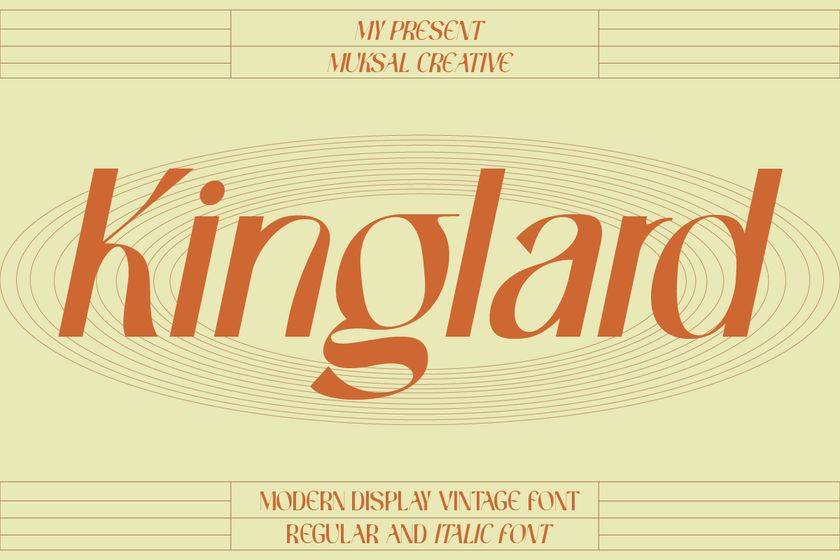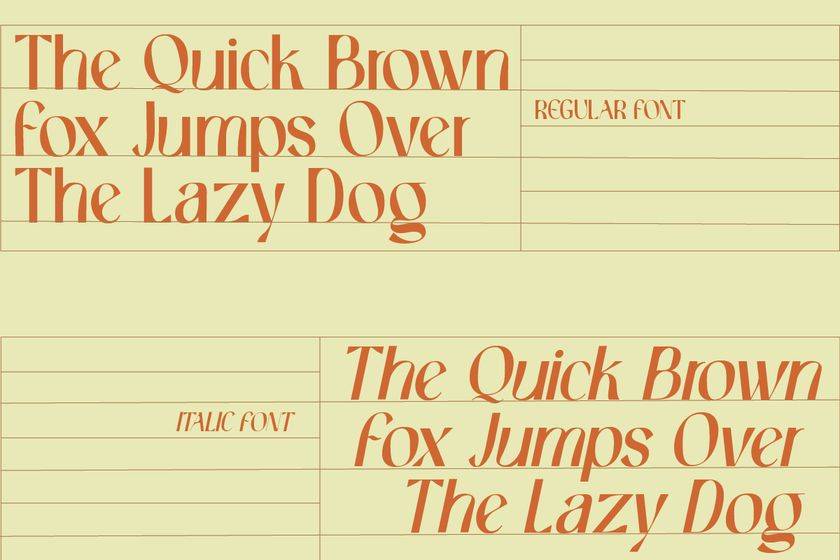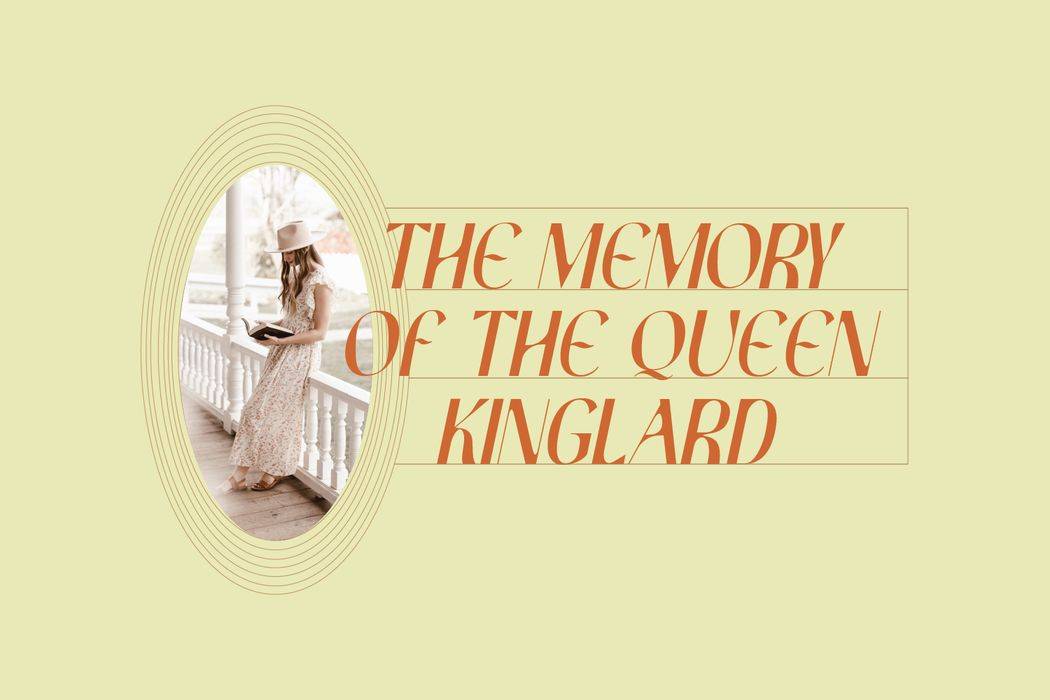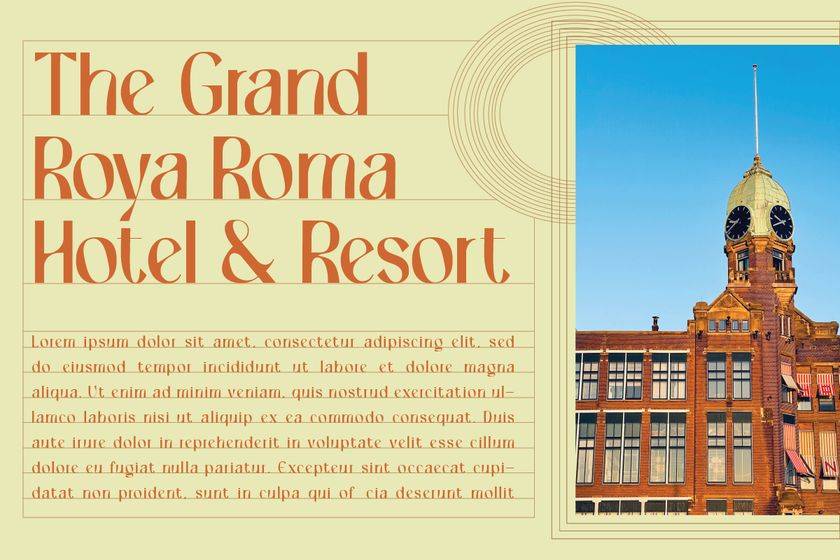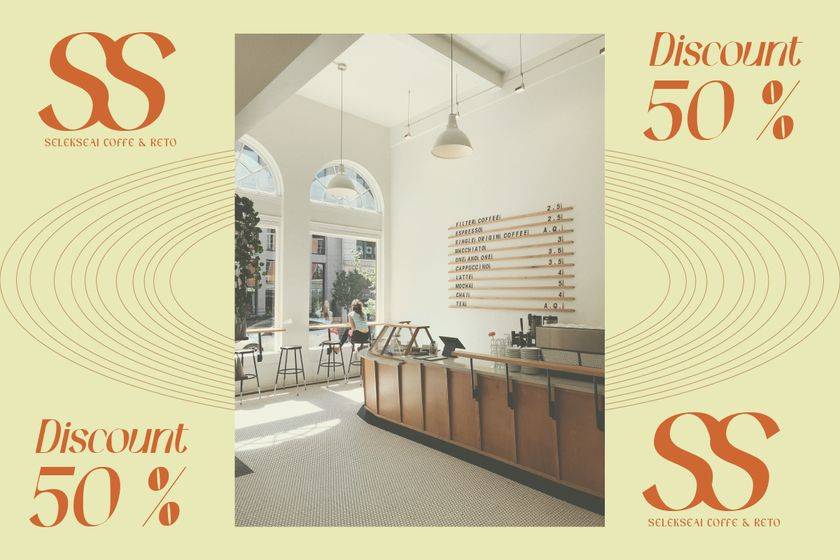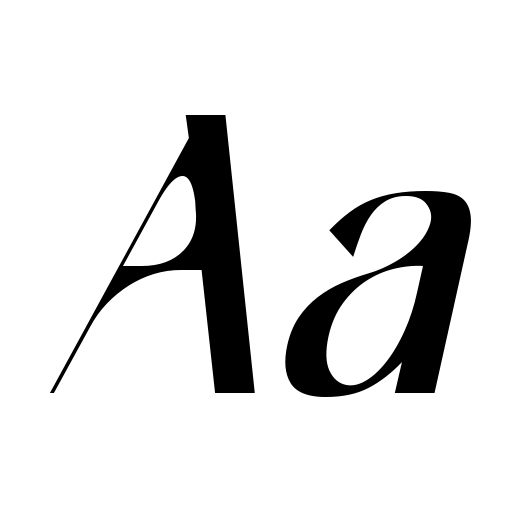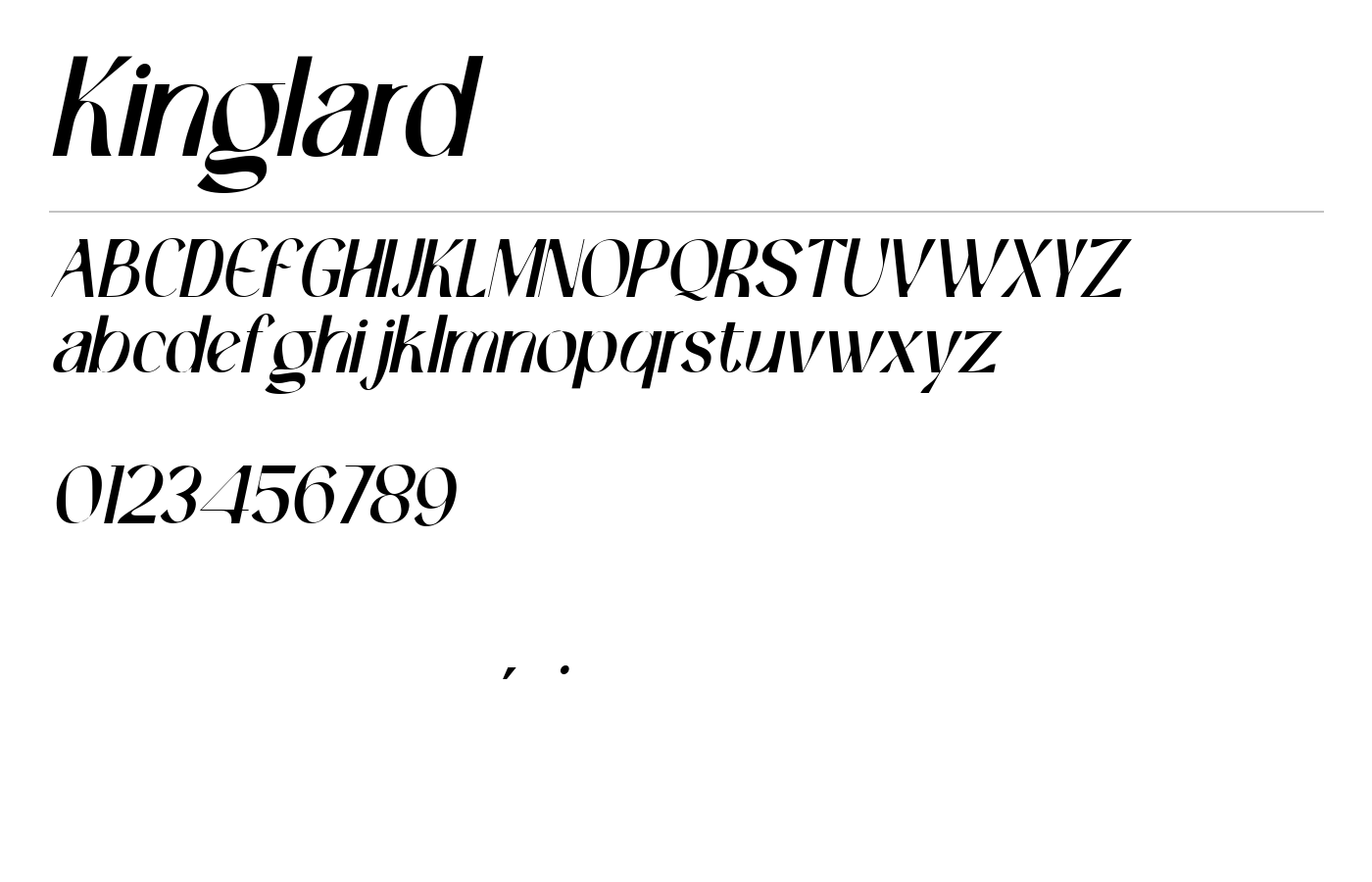
Kinglard is an elegant serif font with a modern, slightly condensed structure that features high contrast between thick and thin strokes. Its sharp, refined serifs and angled letterforms give it a sophisticated and dynamic feel, making it ideal for luxury branding, editorial headlines, and stylish packaging. This font works best where a sleek, contemporary touch is desired to convey elegance and exclusivity.
| Font family | Kinglard Font |
| Designer | Muksal Creative |